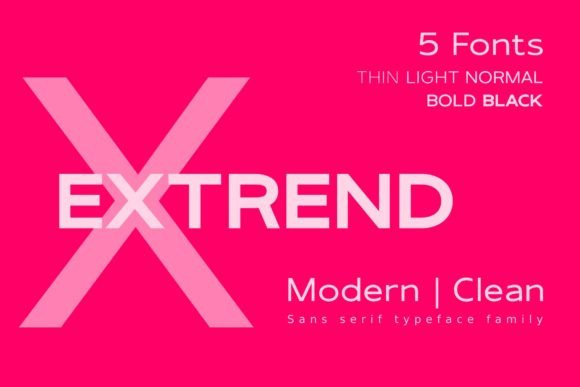
Introducing Extrend Font, the sans-serif masterpiece that will transform your designs into works of art. Crafted by Attractype, this modern and sophisticated font exudes elegance and precision.
With its sharp lines, airy shapes, and delicate curves, Extrend Font emanates a timeless charm. Its versatility knows no bounds, making it perfect for a myriad of creative endeavors. Envision your logos radiating with a sleek and sophisticated flair, headlines that leap off the page with effortless style, and marketing materials that leave an unforgettable impression.
Extrend Font is not merely a font; it's a gateway to captivating designs. Its clean and legible nature ensures effortless readability, while its aesthetic appeal adds a touch of allure to your creations. Whether you're crafting stunning magazine covers, designing captivating posters, or creating eye-catching social media posts, Extrend Font will elevate your work to new heights.
Join the ranks of discerning designers who have embraced Extrend Font as their go-to choice. Experience the transformative power of a font that speaks volumes without uttering a word. Dare to break free from the ordinary and let Extrend Font ignite your creativity.